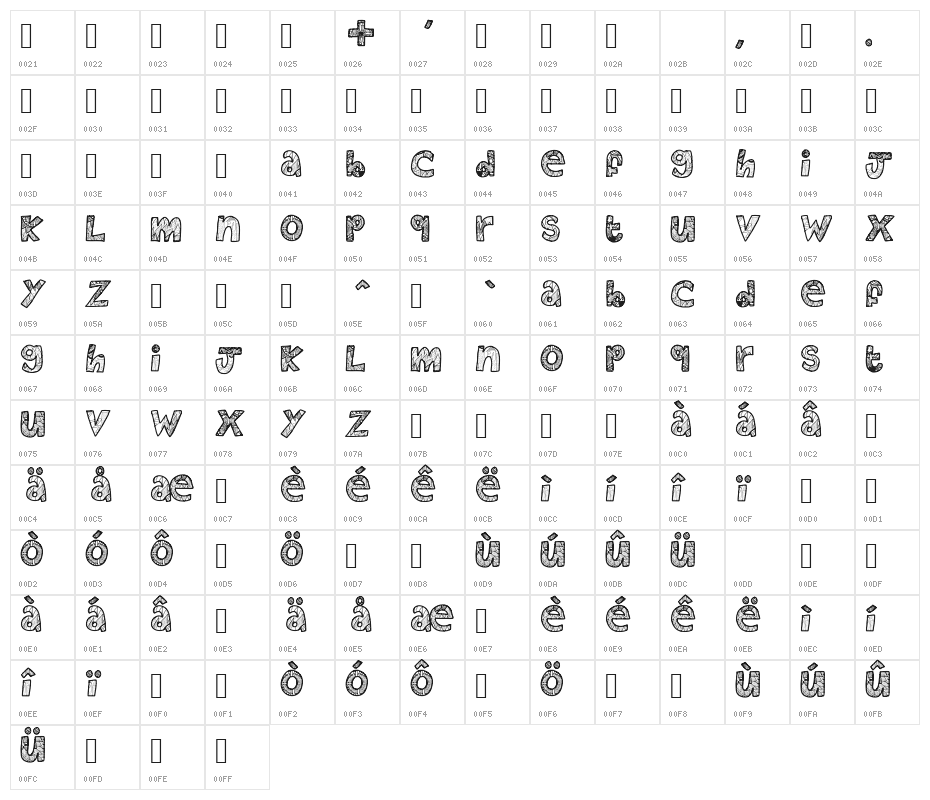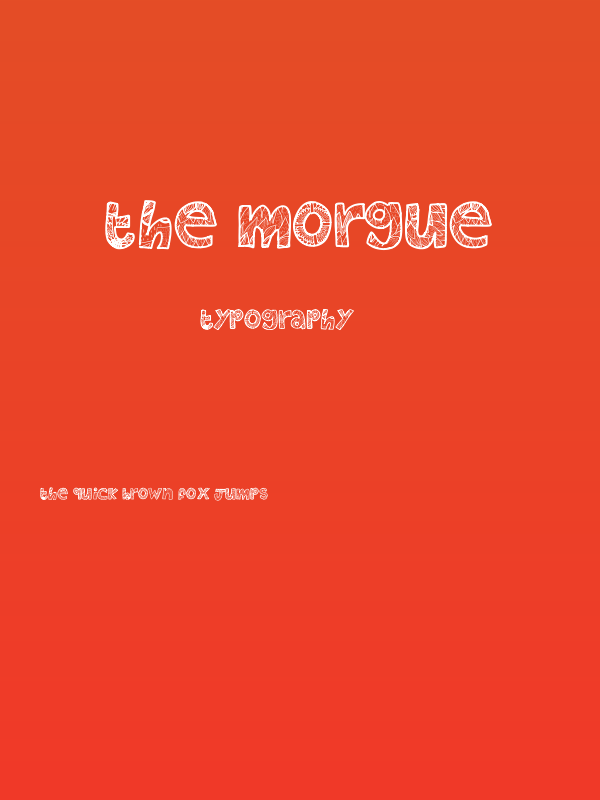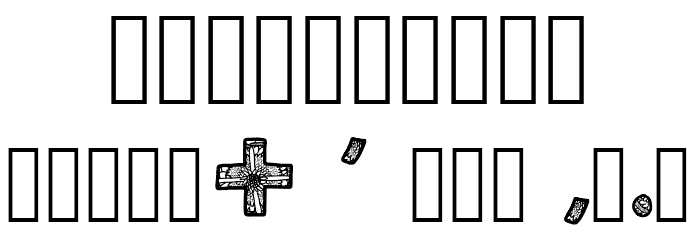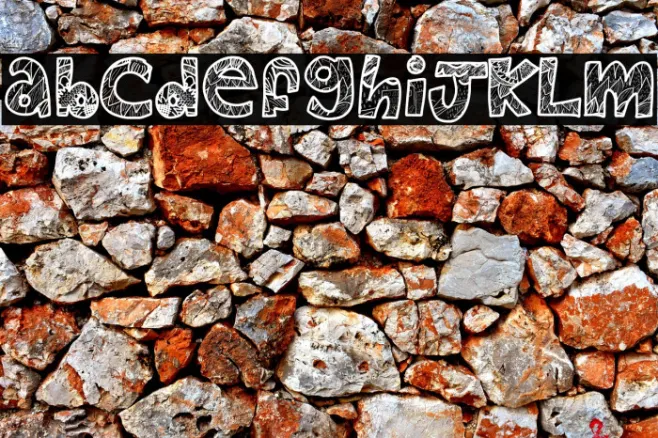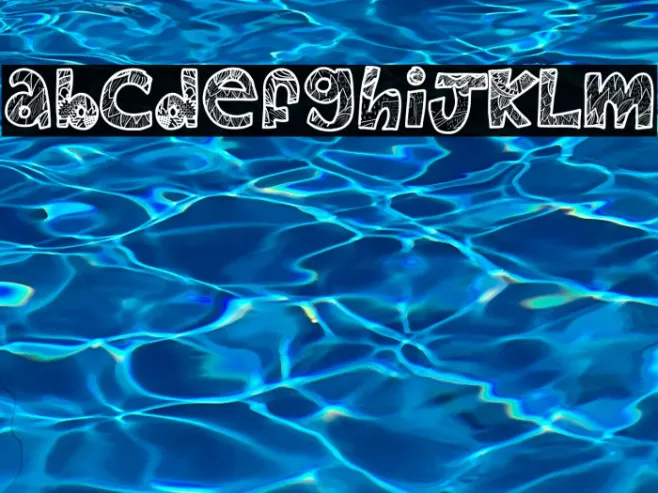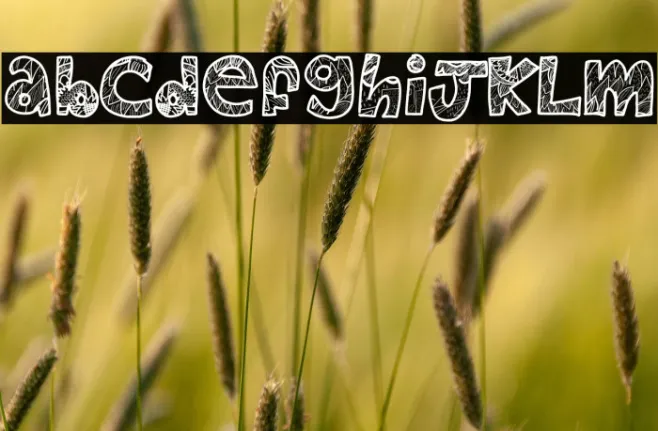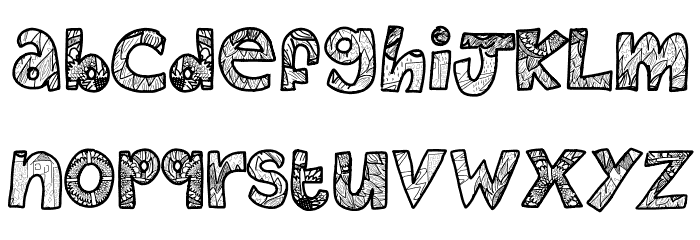
THE MORGUE Font
THE MORGUE Description
This font features a playful and artistic design with each character filled with intricate patterns and doodles. The letters have a bold, hand-drawn appearance, giving them a unique and whimsical style. The uppercase and lowercase letters maintain a consistent theme, with each character showcasing a different pattern, such as stripes, dots, or abstract shapes. The numbers and special characters follow the same artistic approach, ensuring a cohesive look throughout. This font is ideal for creative projects that require a touch of fun and individuality.
| Overall Style | Whimsical |
| Proposed Projects | Ideal for children's books, creative posters, playful branding, and artistic invitations. |